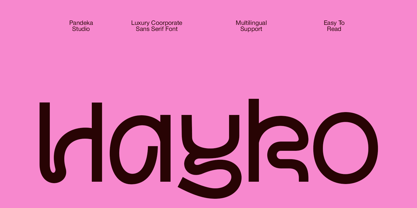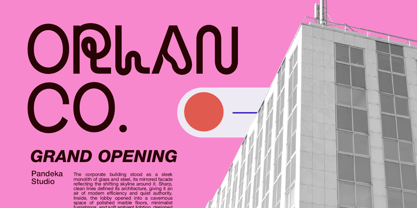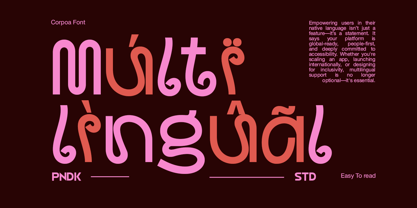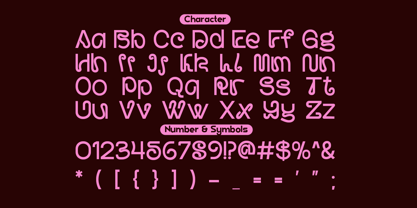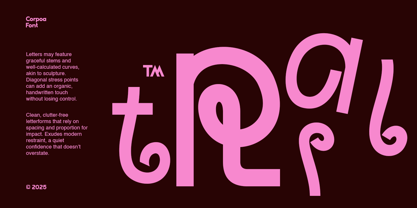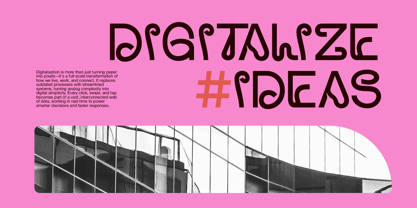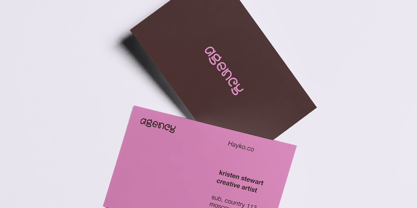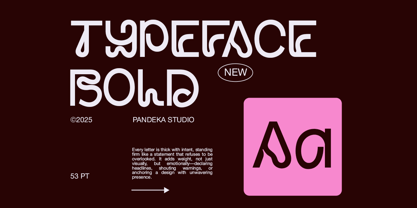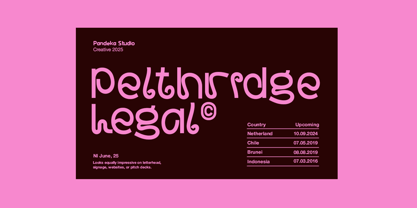
Hayko
The Hayko Font Family was designed by Sagara Nararya and published by Pandeka Studio. Hayko contains 1 styles. More about this family
Hayko is a unique and bold display font that blends corporate precision with experimental creativity. Its distinctive curves, playful shapes, and modern construction make it stand out in branding, editorial layouts, digital campaigns, and innovative corporate projects that seek originality.
With a single Regular style, Hayko still offers strong versatility — perfect for eye-catching titles, posters, packaging, or digital content that demands attention. It includes uppercase and lowercase letters, numerals, punctuation, symbols, and multilingual support, making it adaptable for global use while keeping a daring and professional aesthetic.